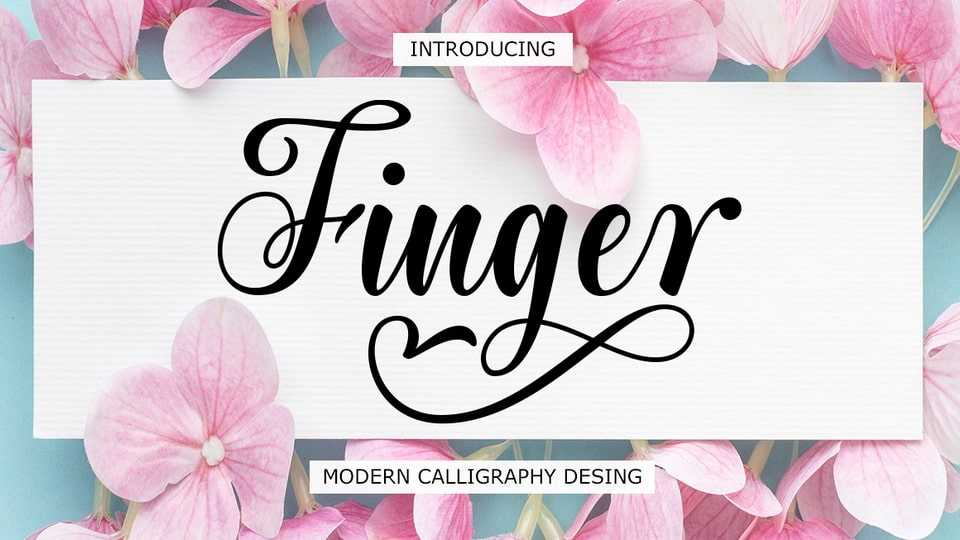
Download Finger font, a beautiful modern script typeface with starting and ending strokes, where there are various alternative options that make this font even more beautiful and aesthetic to enhance your extraordinary projects.